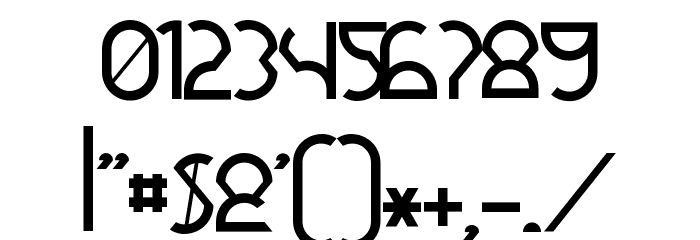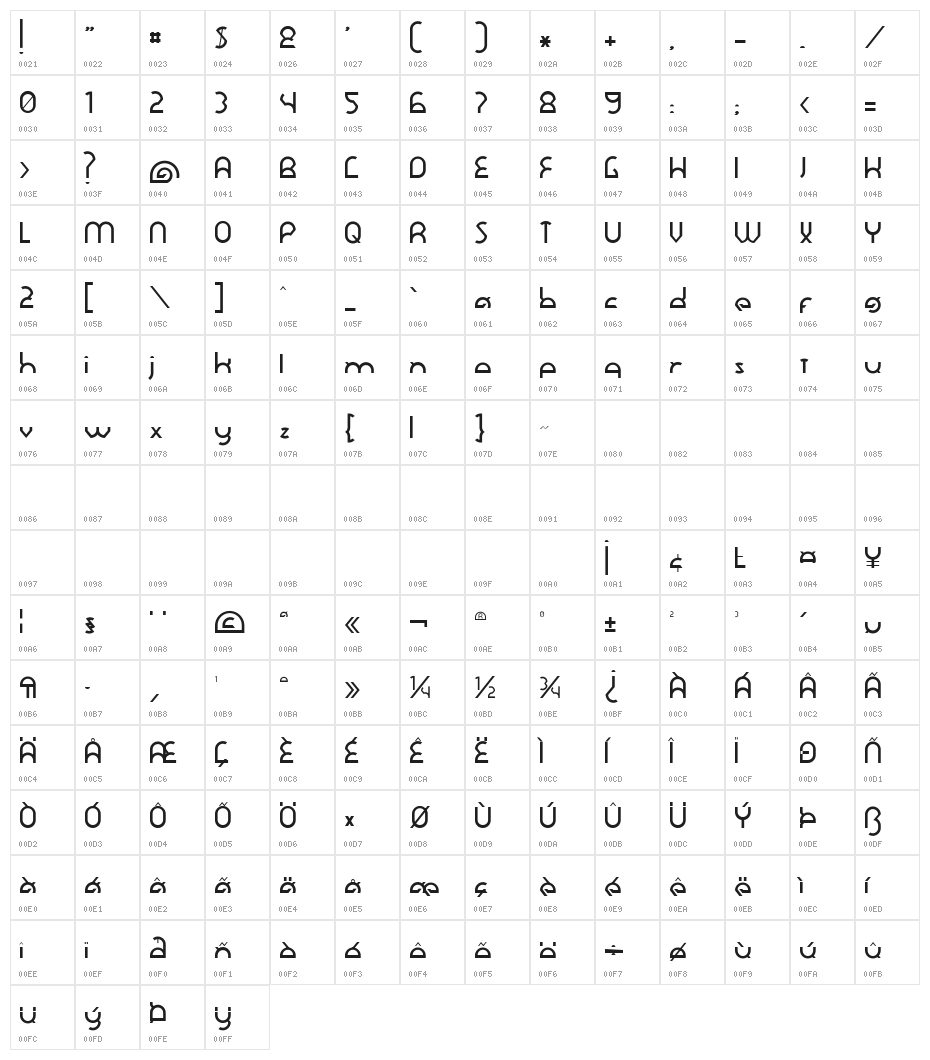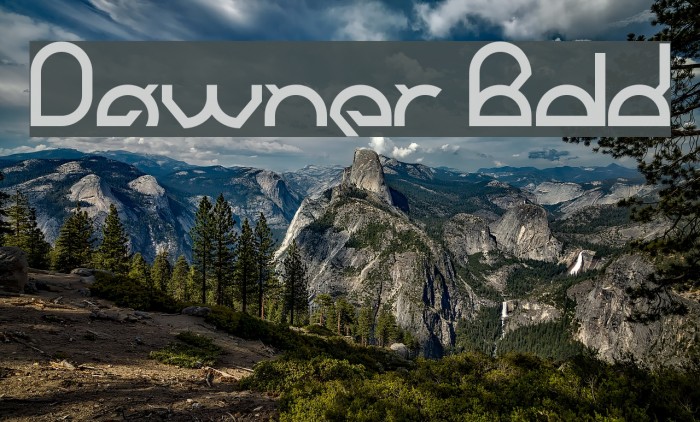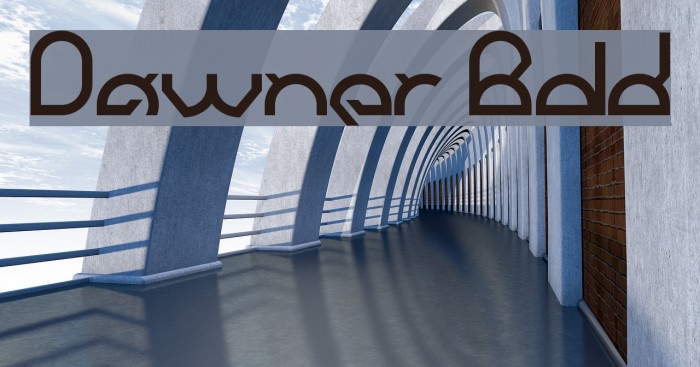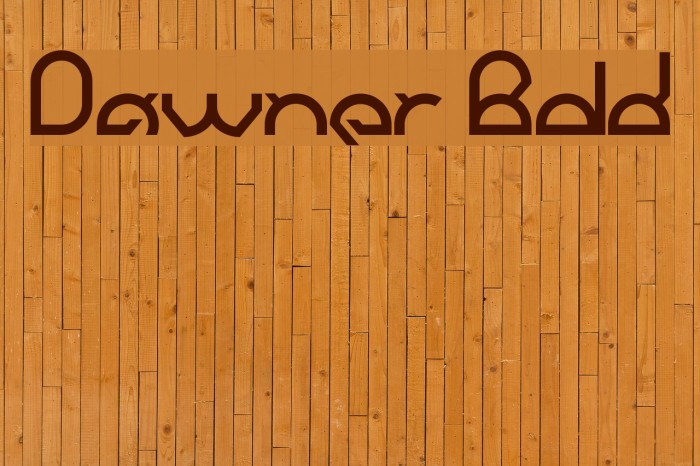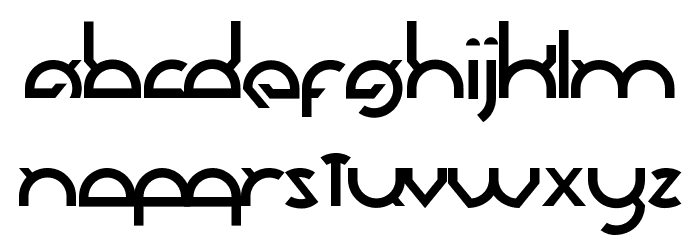
Dawner Bold Font
Dawner Bold Description
This font features a modern and geometric design with a unique blend of curves and straight lines. The uppercase letters are bold and have a futuristic appearance, with rounded edges that give a smooth and sleek look. The lowercase letters maintain the geometric style, offering a consistent visual flow. Numbers are distinct and easy to read, while special characters are designed to complement the overall aesthetic. The font's structure is clean and minimalistic, making it suitable for contemporary design projects.